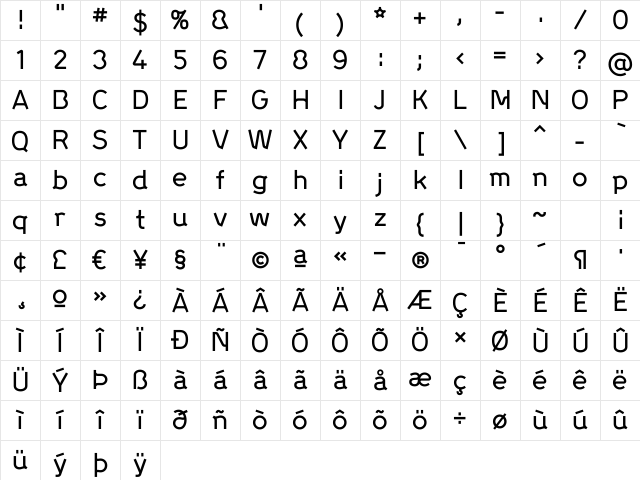
ProgressMedium Regular
Design Context for ProgressMedium
ProgressMedium is a composed and adaptable typeface that performs quietly and consistently across a wide range of design contexts.
Pro Tip: Use ProgressMedium in both headline and body roles to test its range before committing to a single application.